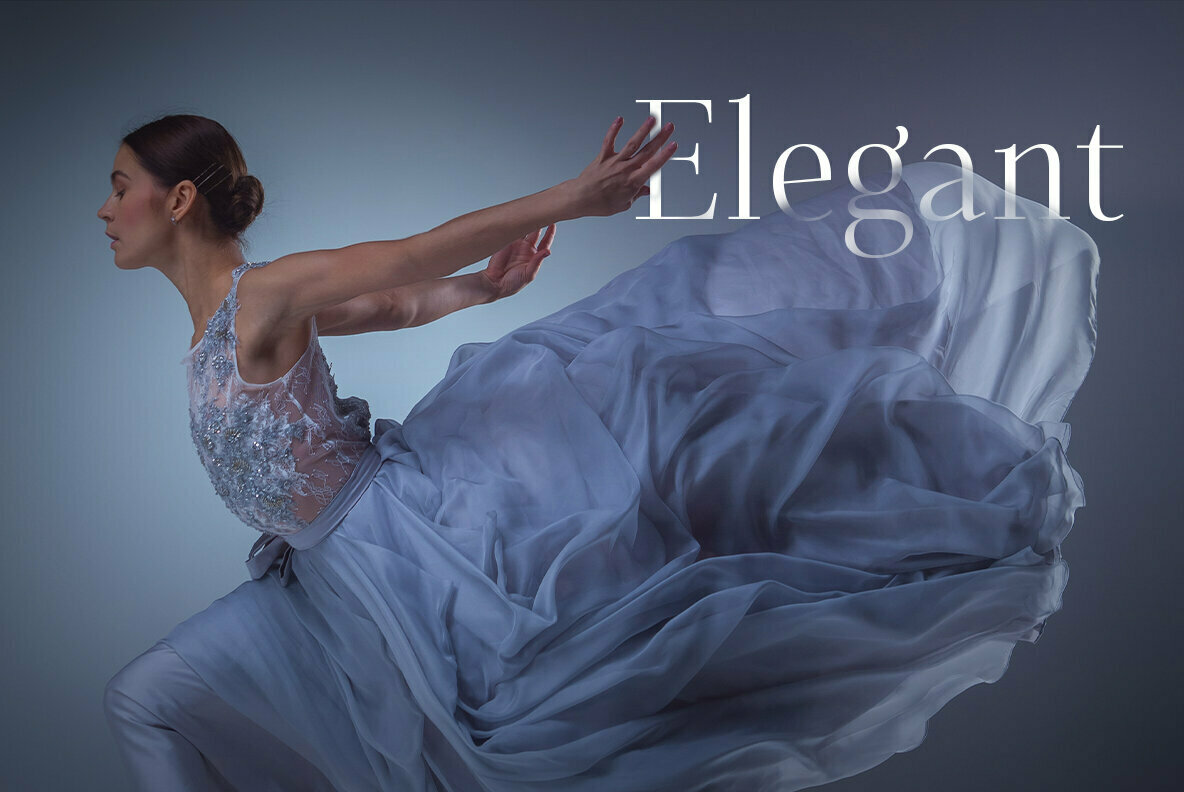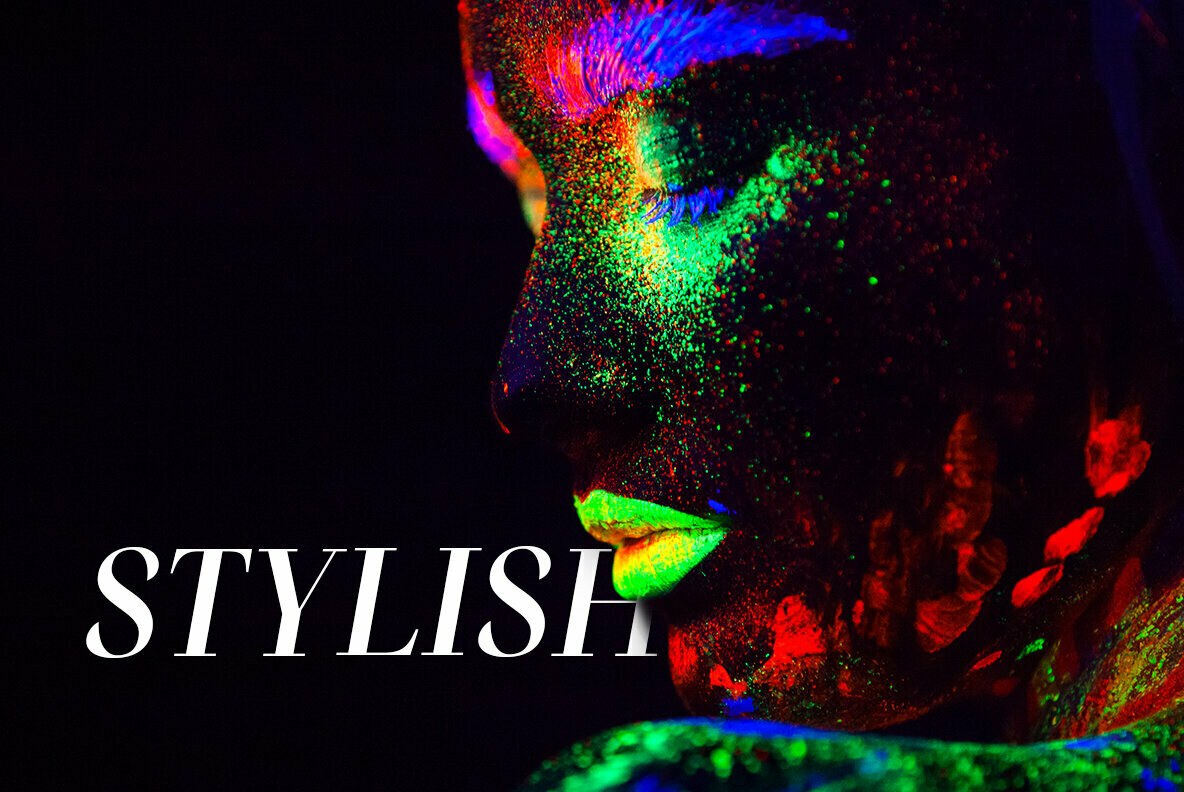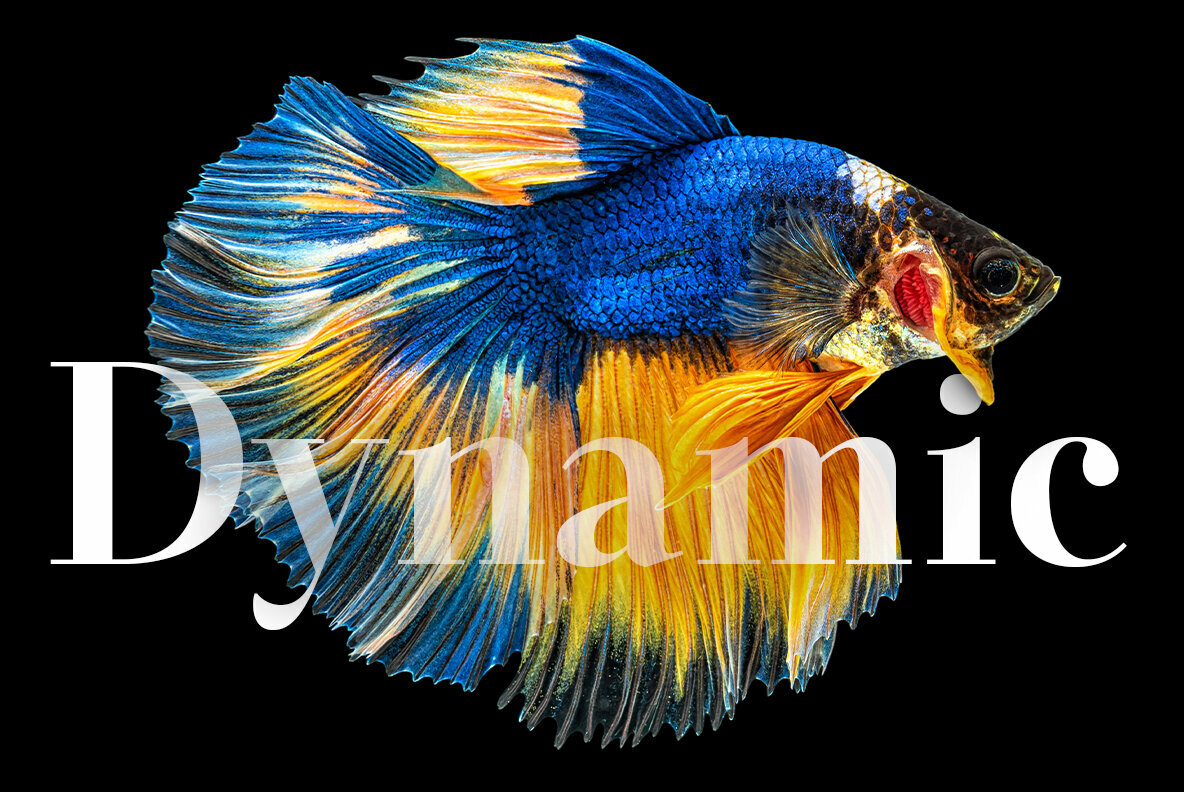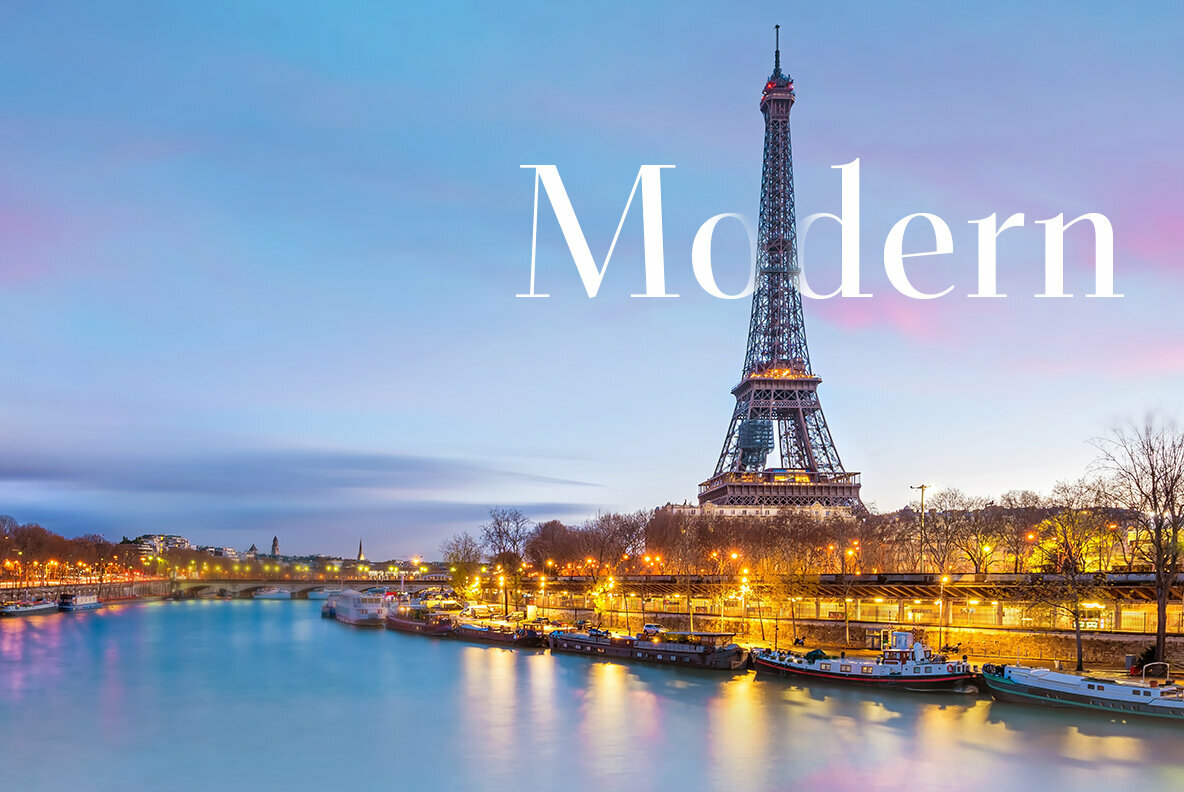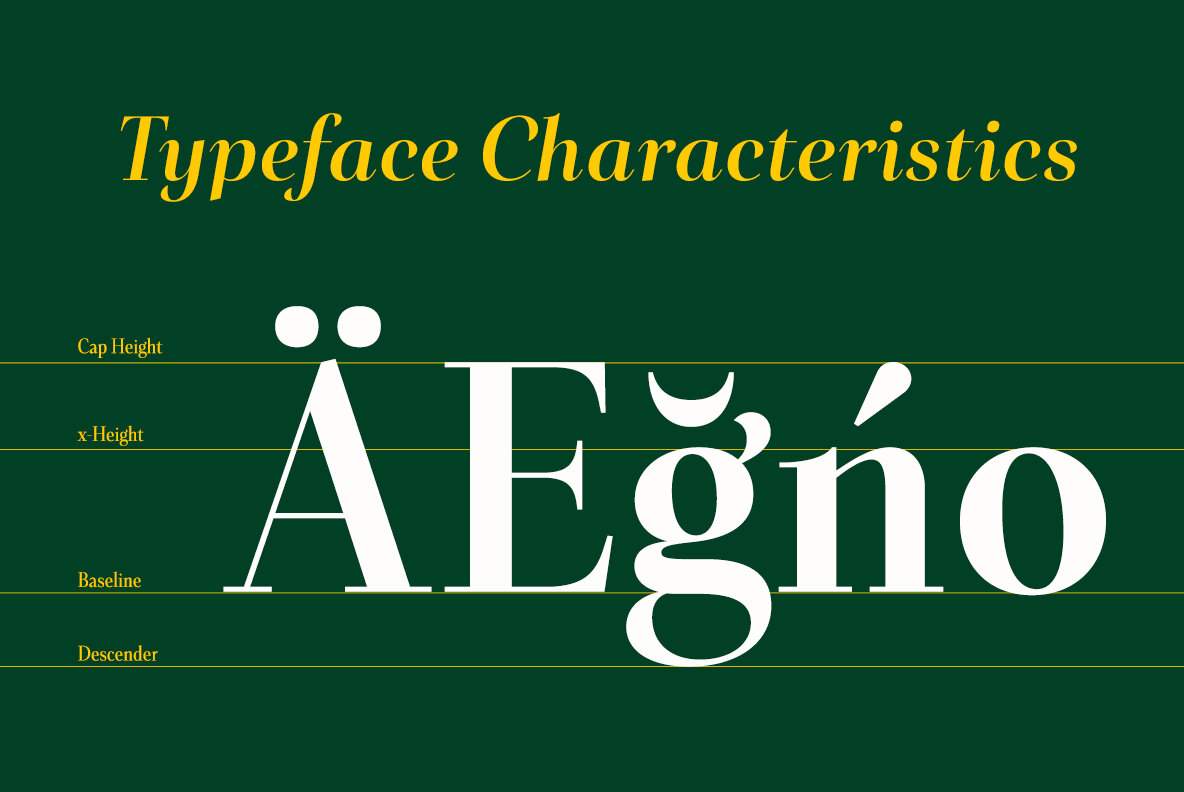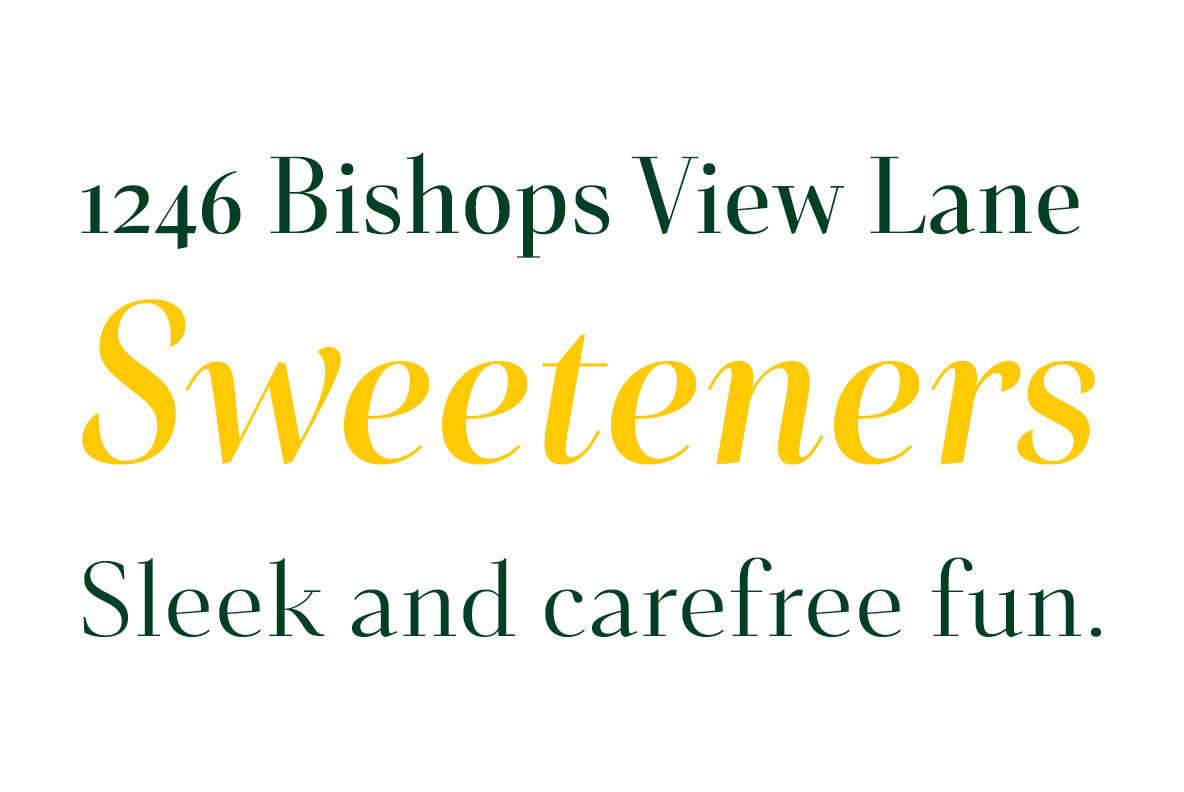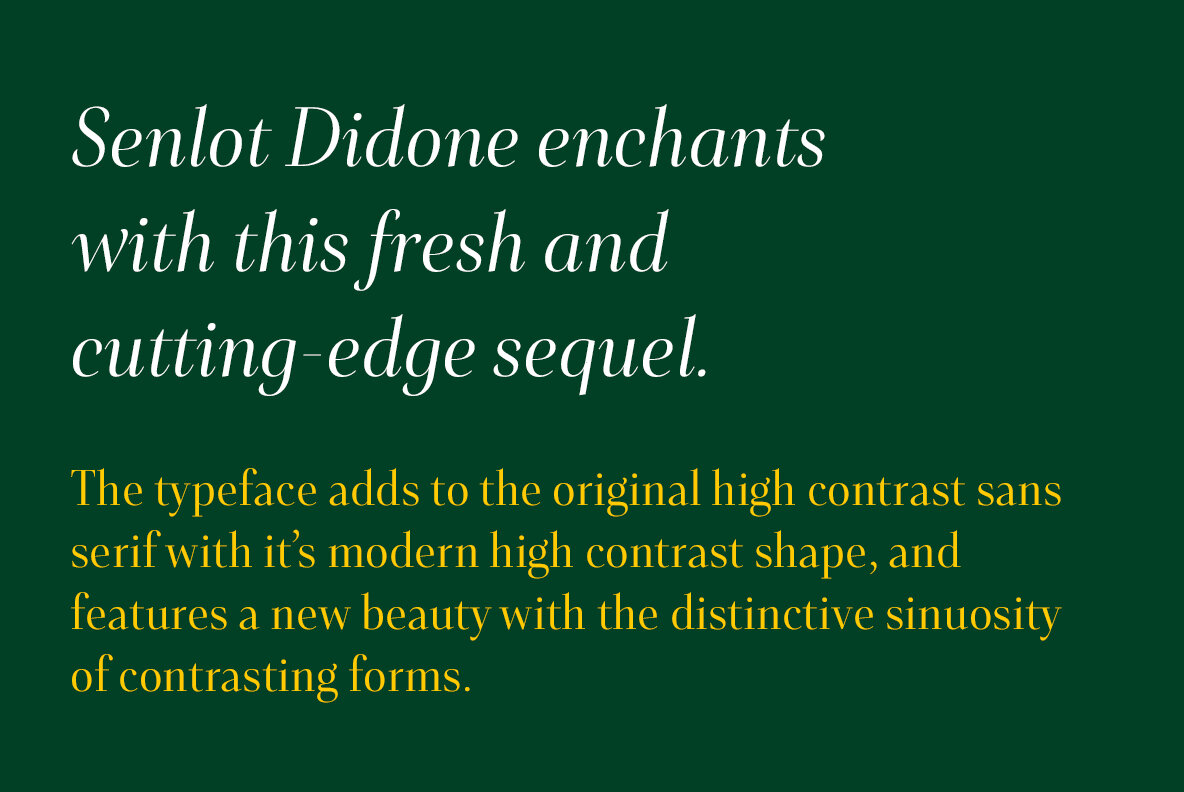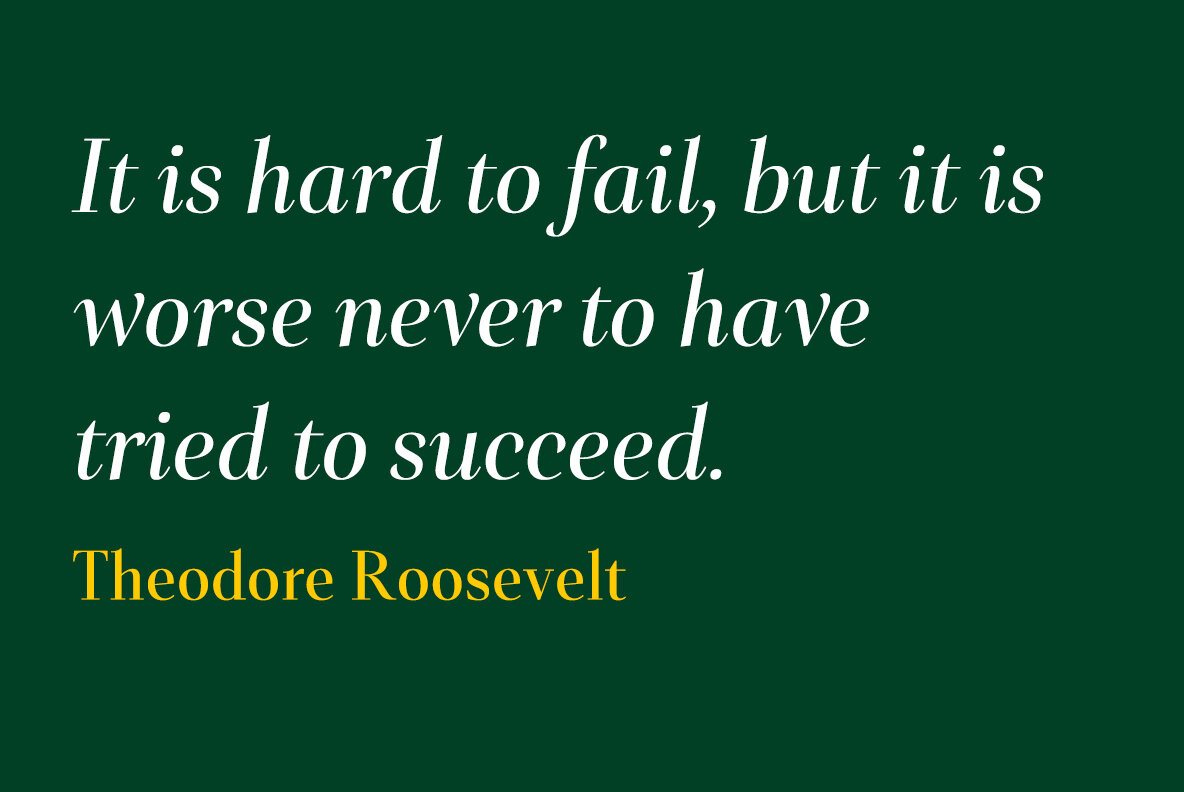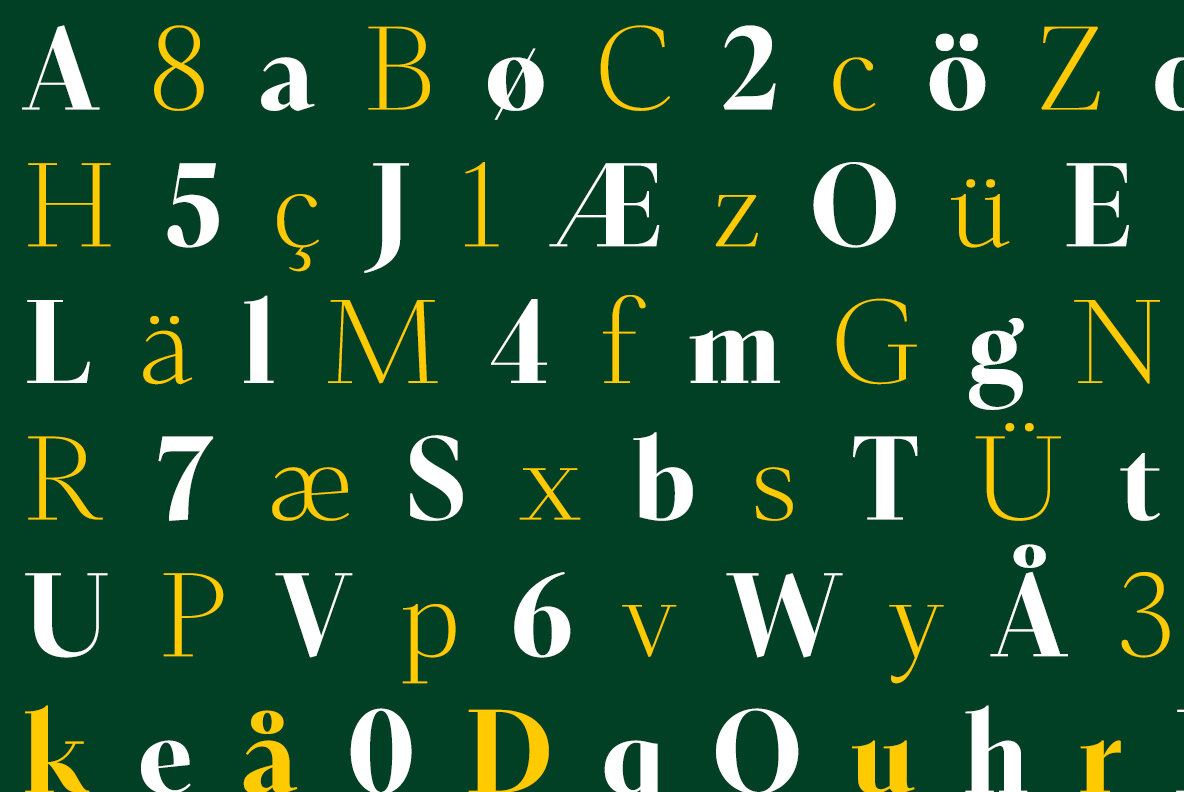
Senlot Didone Font
With Senlot Didone, there's no need to compromise on another font with fewer features. Simple, elegant, and versatile, Senlot Didone now makes perfect more possible. Take the show by storm with this high contrast serif. The seductive figure of Senlot Didone is here to entice your viewer.